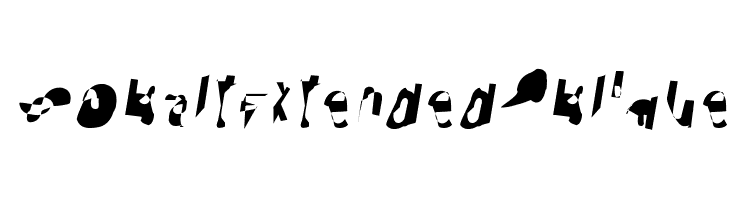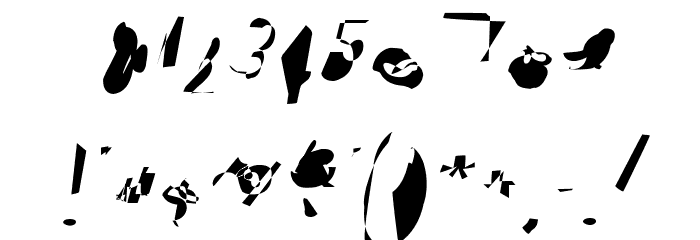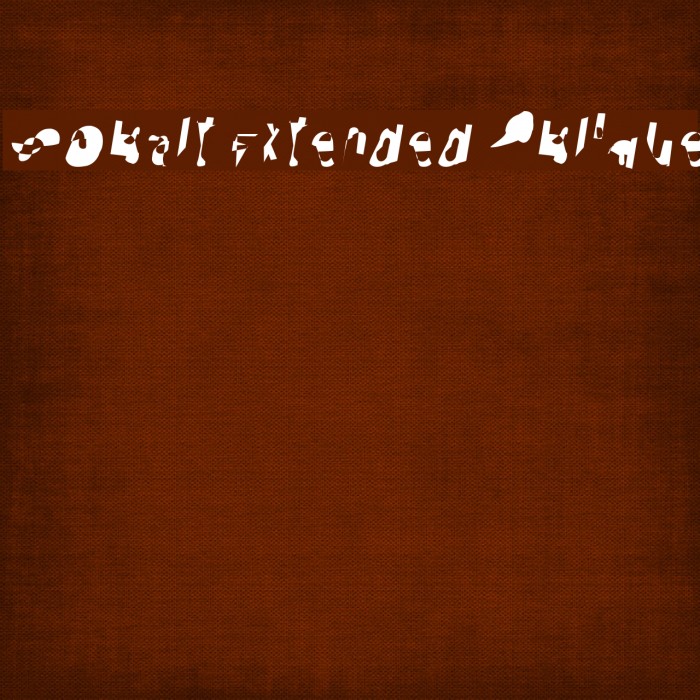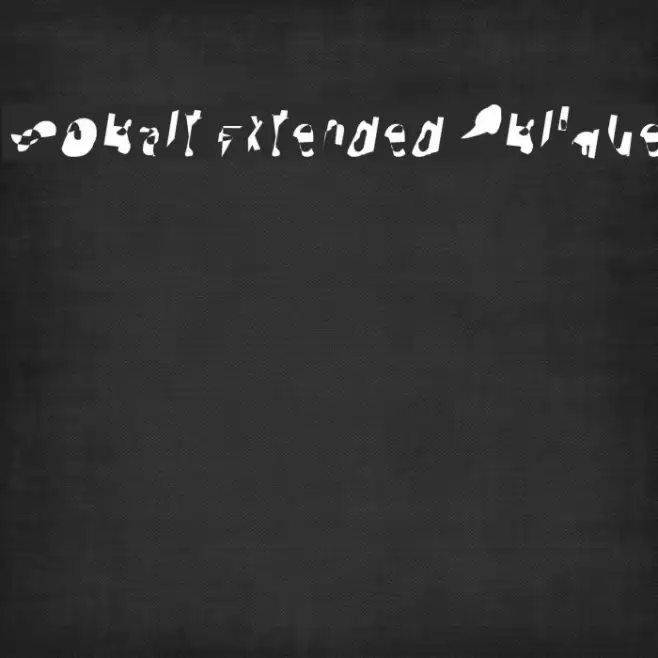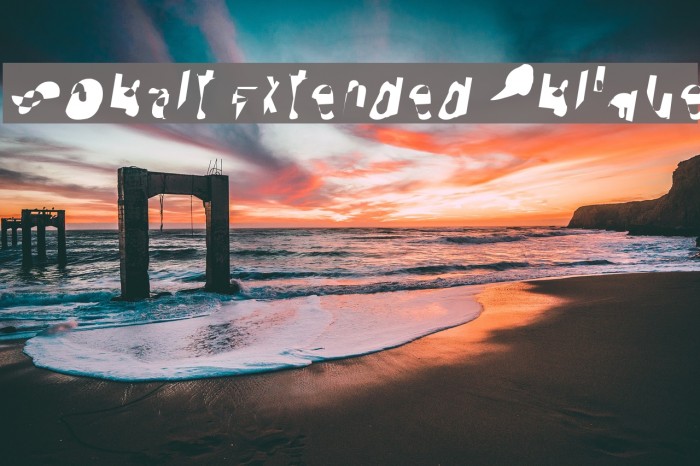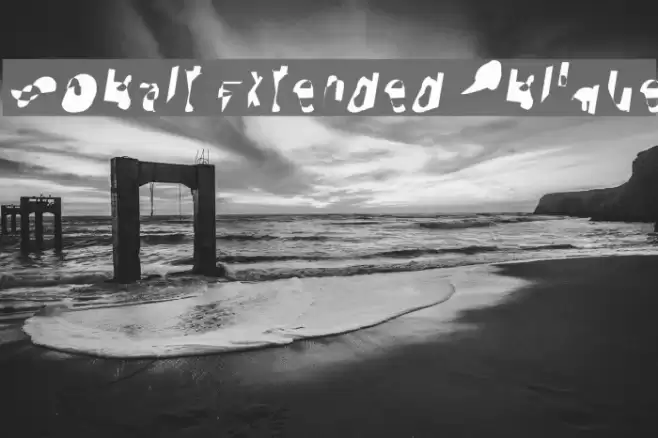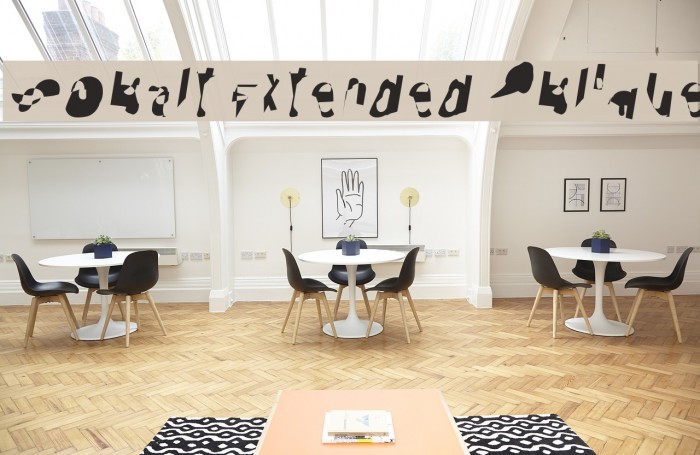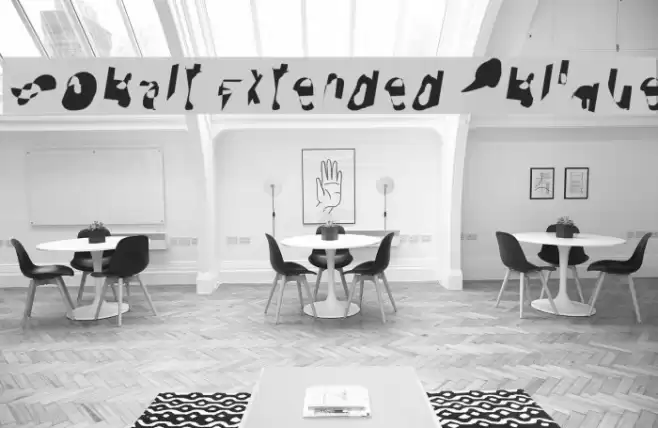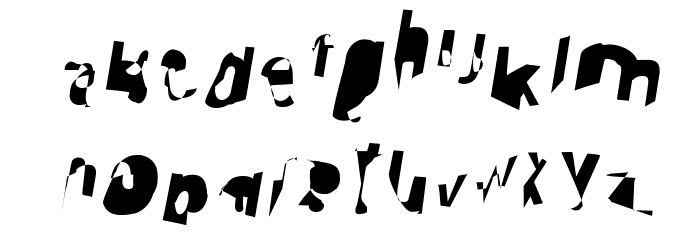
Cobalt Extended Oblique Font
Cobalt Extended Oblique Description
This font presents a highly abstract and fragmented style, characterized by its bold and dynamic shapes. Each character is uniquely distorted, creating a sense of movement and energy. The design incorporates sharp angles and irregular forms, making it visually striking and unconventional. The font's oblique nature adds to its dynamic appearance, while the extended width gives it a broad and expansive feel. The characters are heavily stylized, with varying stroke thicknesses that contribute to a high contrast look. This font is ideal for projects that require a bold, artistic statement.
| Width | Expanded |
| Overall Style | Modern, Abstract |
| Use Case | Headlines, Logos, Artistic Displays |
| Proposed Projects | Ideal for artistic posters, album covers, avant-garde branding, and modern art installations. |